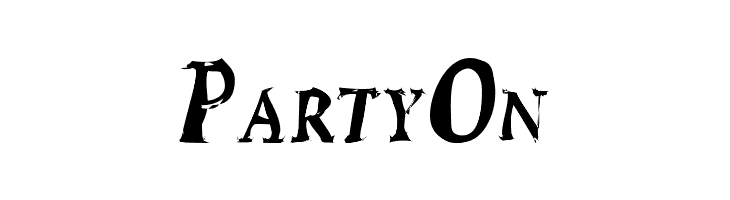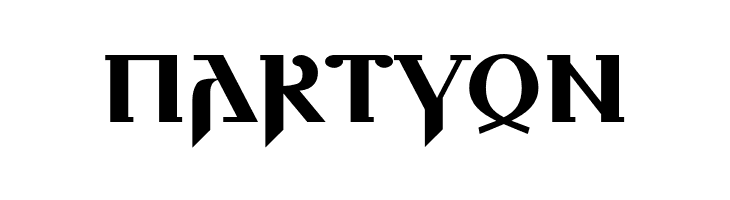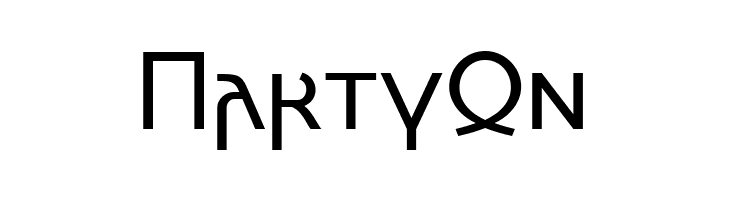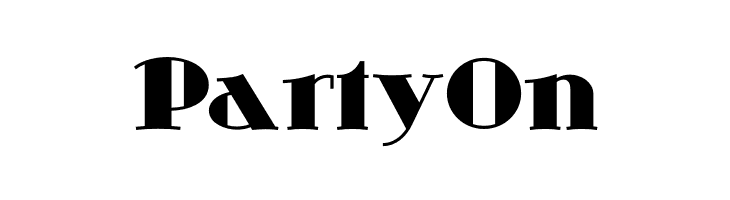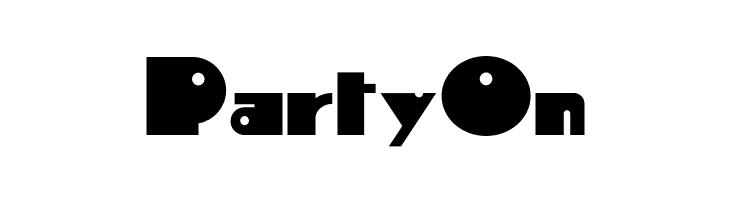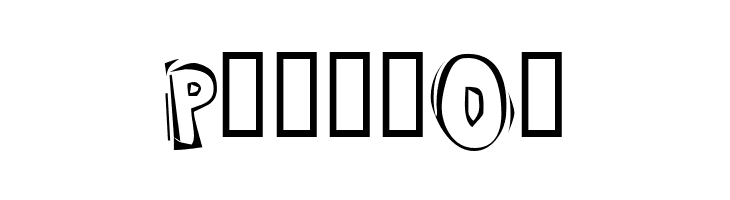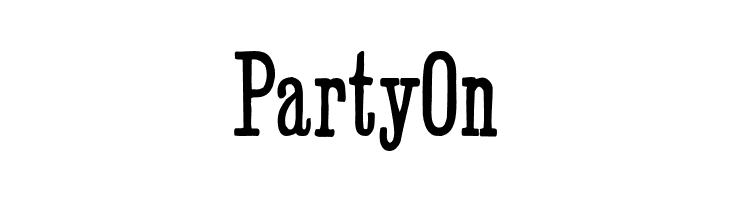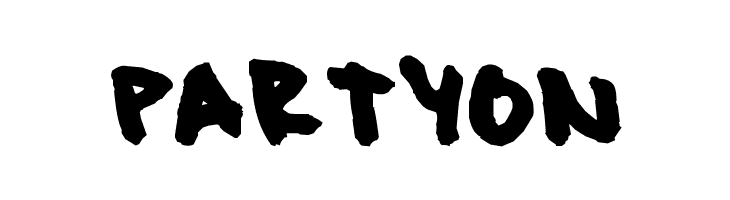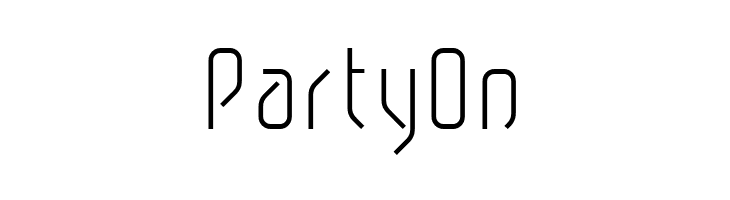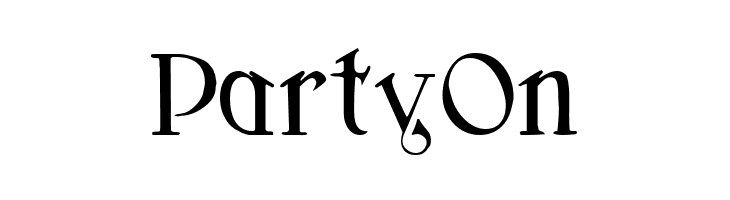
• Sidhe Noble
A fantasy-inspired serif font with sharp, angular serifs and ornate details.
• SidTheKidNF
A bold, geometric font with playful and striking characters.
• Silubr
A bold, angular font with sharp serifs and a modern Gothic influence.
• Skechie Medium
A bold, distressed font with a grunge-like, hand-drawn appearance.
• Skeirs
A modern, geometric font with sharp angles and clean lines.
• SkinnyAL
A modern, geometric font with thin, elongated characters and a sleek design.
• SkittlesnBeerNF
A bold, high-contrast font with angular serifs and dynamic style.
• Skrotfont
• SlabSerifHPLHS
A bold slab serif font with strong, block-like serifs and a classic yet modern appeal.
• Slouch...
A bold, brush-style font with an energetic and hand-drawn appearance.